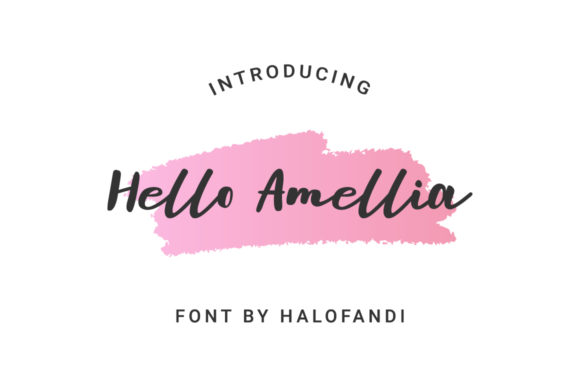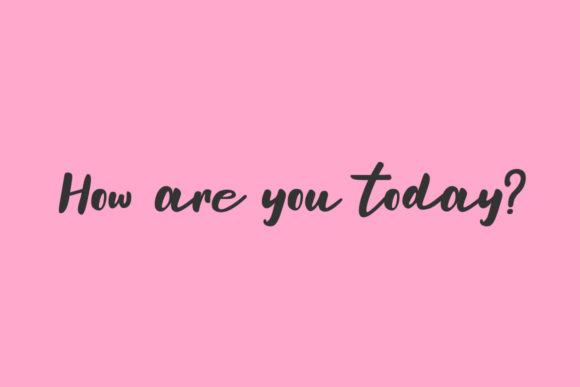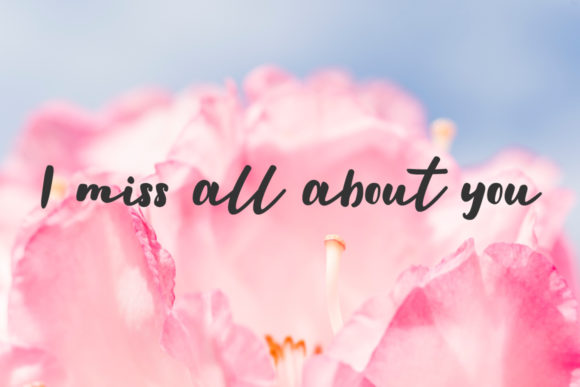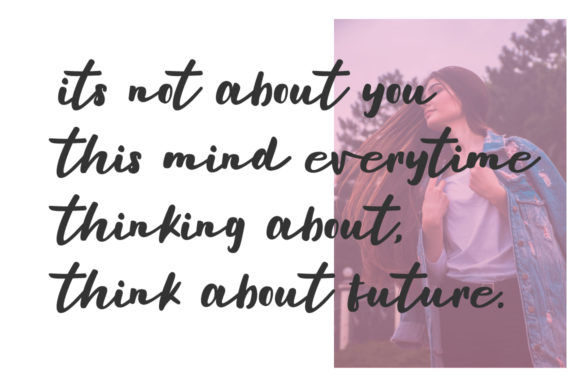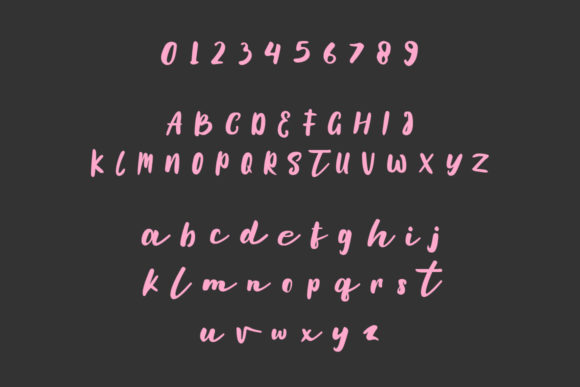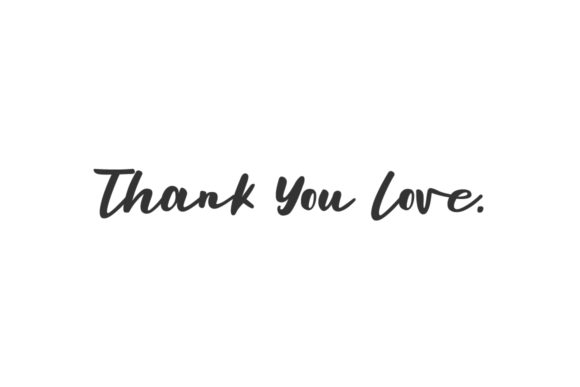
Hello Amellia Font
About Hello Amellia Font
Hello Amellia is an incredibly distinct, delicate and timeless handwritten font. It looks stunning on wedding invitations, thank you cards, quotes, greeting cards, logos, business cards and every other design which needs a handwritten touch.